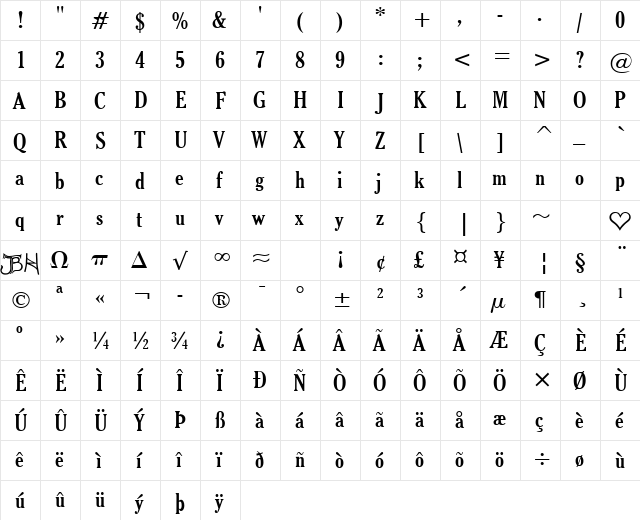
Thyssen J Regular
Design Context for Thyssen J Typeface
Thyssen J offers clean, dependable letterforms without strong stylistic allegiance, making it a practical choice for designers who need flexibility.